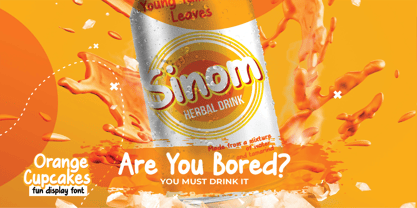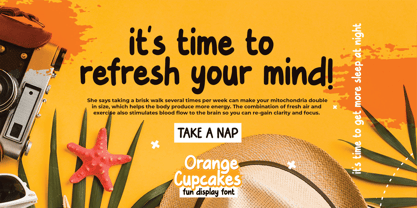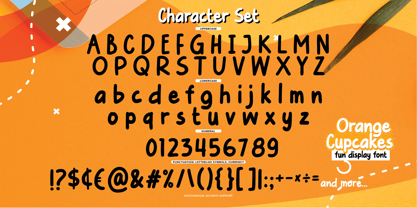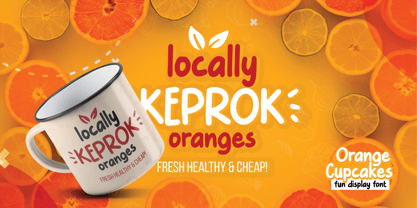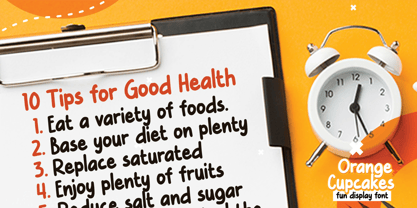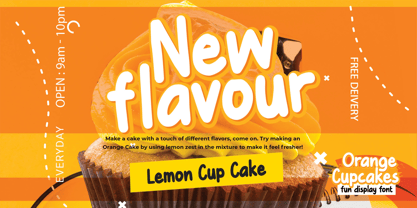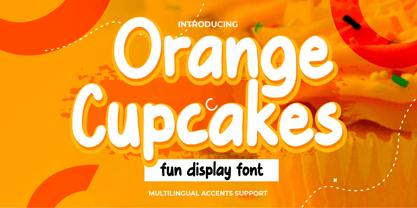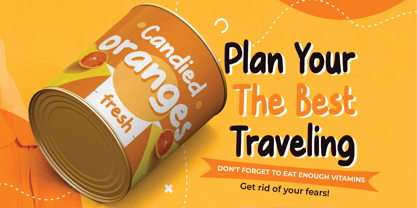
Orange Cupcakes
von Almarkha Type
Die Schriftfamilie Orange Cupcakes wurde von Abdul Malik Wisnu entworfen und von Almarkha Type veröffentlicht. Orange Cupcakes enthält 1 Stile. Mehr über diese Familie
Orange Cupcakes is a – Cute Playful Font that will make your designs look modern, unique and fun. It’s perfect for labels, quotes, posters, DIY projects, branding, packaging, greeting cards, websites, photography overlays, signs, window art, scrapbooking, tags and so much more! A fun, playful, and cheerful display font with a sweet personality, designed to grab attention and bring warmth to your designs joyful look!
Designer: Abdul Malik Wisnu
Foundry: Almarkha Type